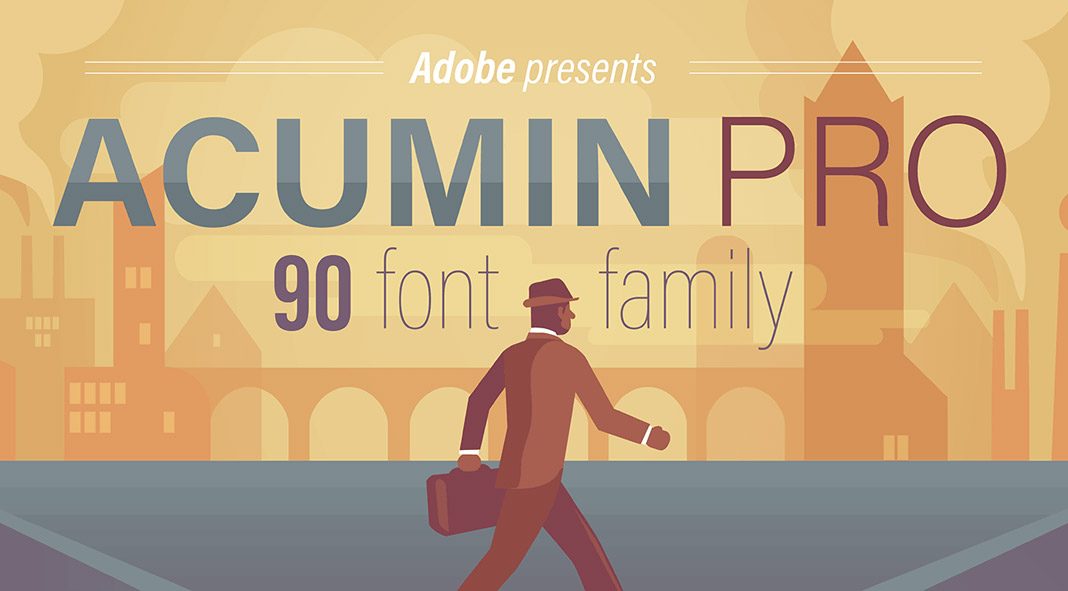
Acumin Pro, an extensive font family consisting of 90 fonts.
Designed by Robert Slimbach and published by Adobe, Acumin Pro is a versatile sans-serif type family that can be used for both text and headlines. Its clean, modern look is a great choice for infographics, wayfinding systems, branding, and other contemporary designs. Typeface designer Robert Slimbach has managed to add a subtle balance to the modular shapes, which is essential to the neo-grotesque tradition. Packed with 90 subfamilies and lots of typographic features, this family is made for professional typography whether print or on screen. We could tell you a lot more about this beautiful font family but you should test it for yourself. For further information on all buying choices and typographic features, just follow the link below. Adobe’s Acumin Pro font family is available for purchase on Fontspring.